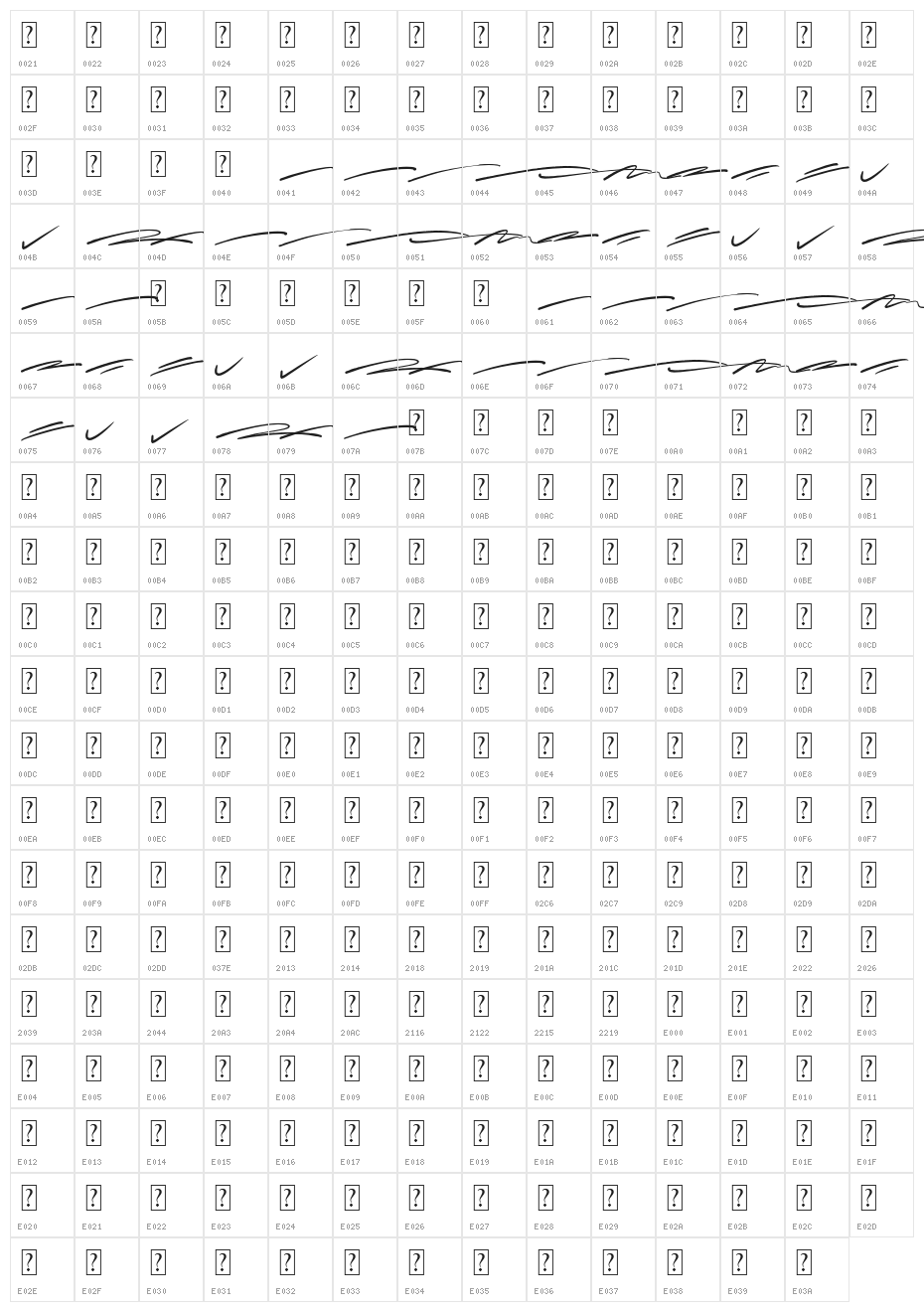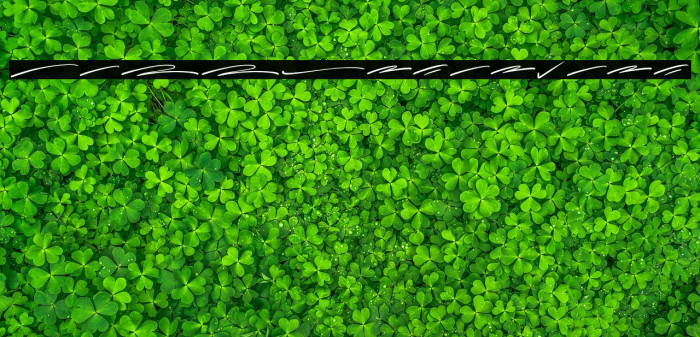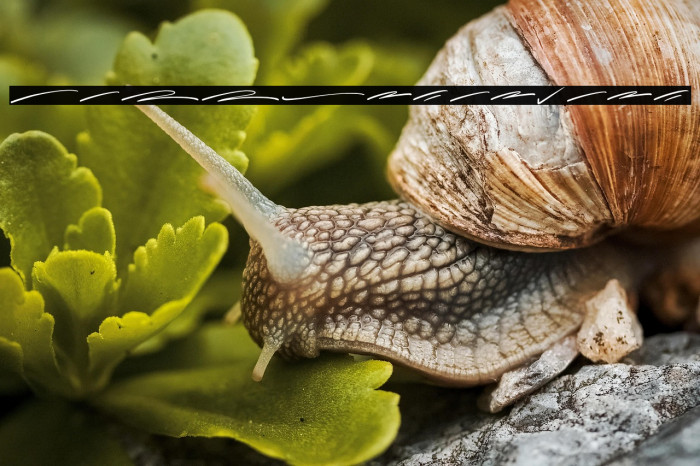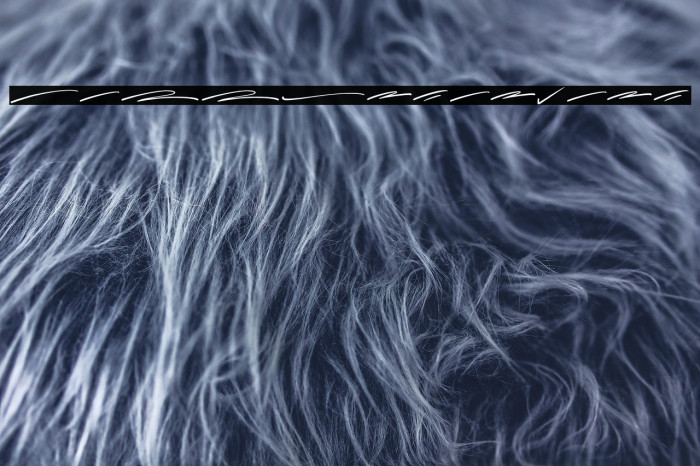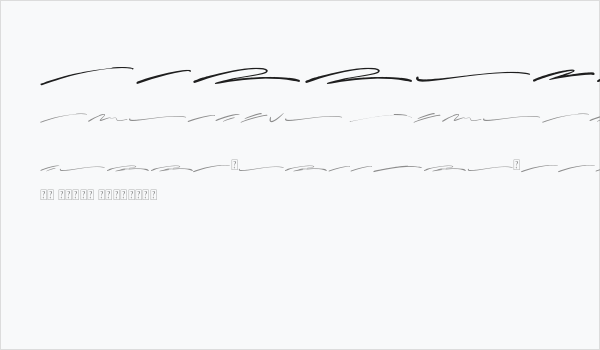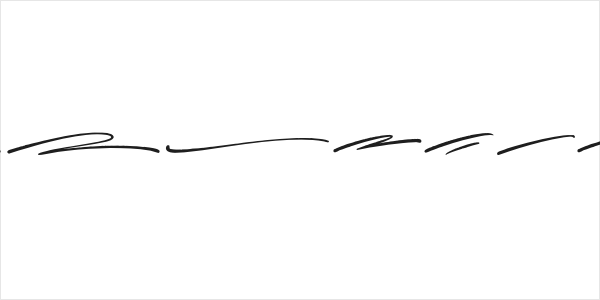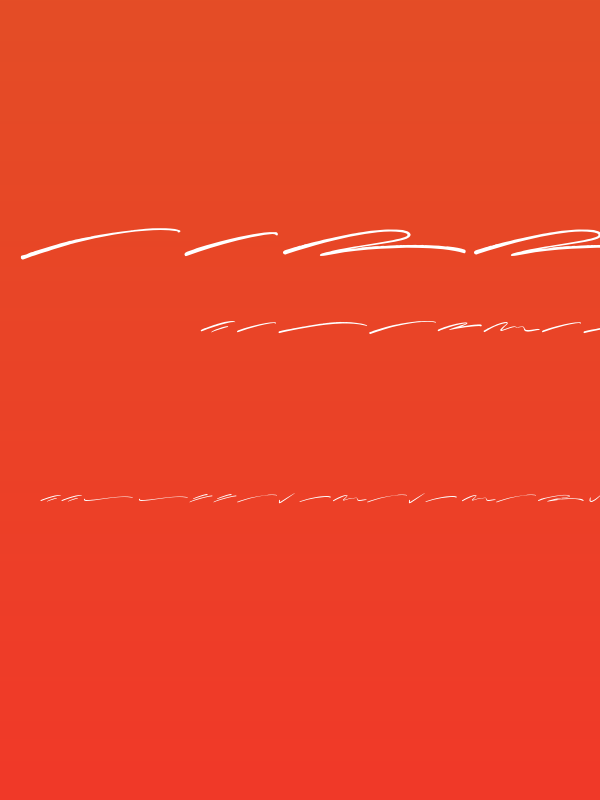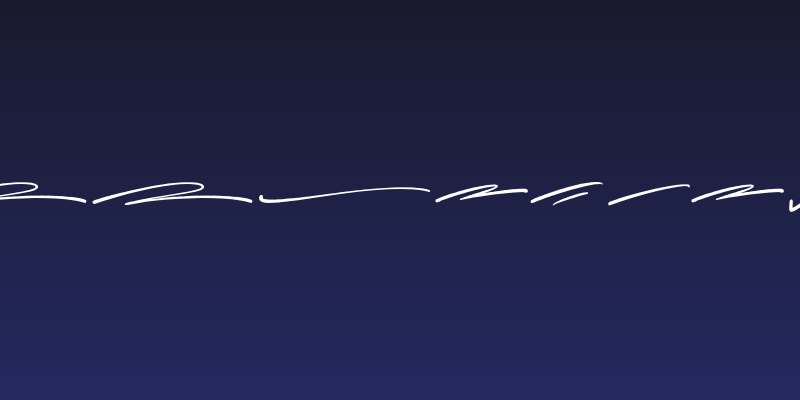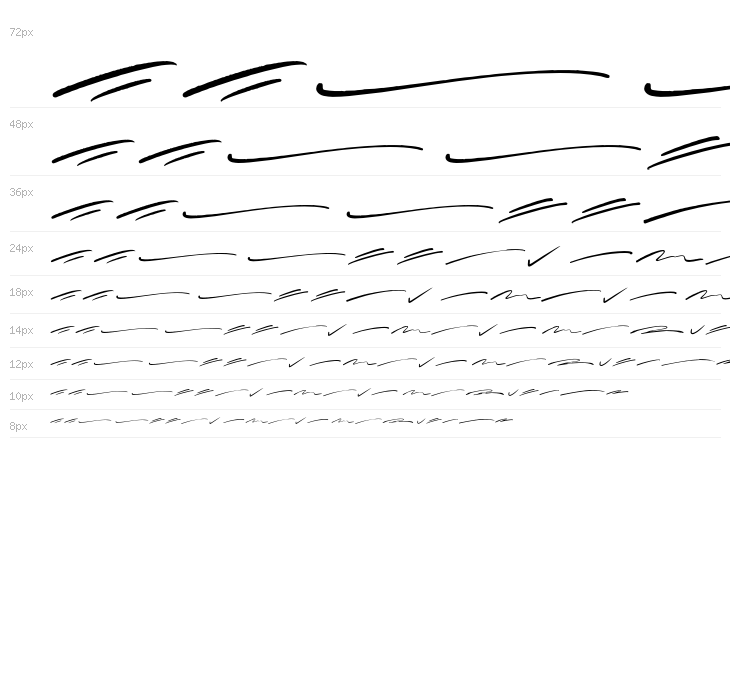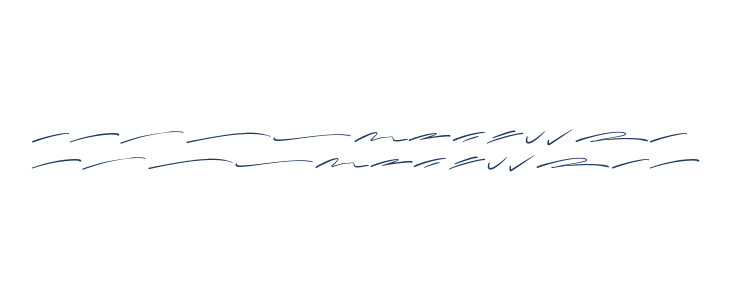
CallestaSwash Font
CallestaSwash Description
This font showcases a flowing, elegant style with long, sweeping strokes that create a sense of movement and grace. The characters are interconnected with delicate swashes, giving it a handwritten, calligraphic feel. The thin lines and subtle curves add a touch of sophistication, making it suitable for formal and decorative purposes. The overall appearance is both artistic and refined, capturing attention with its unique and stylish presentation.